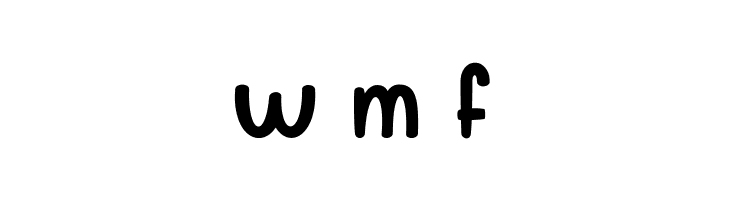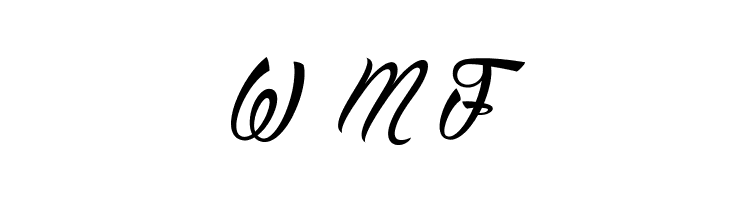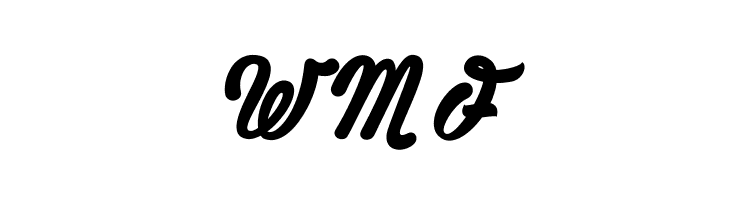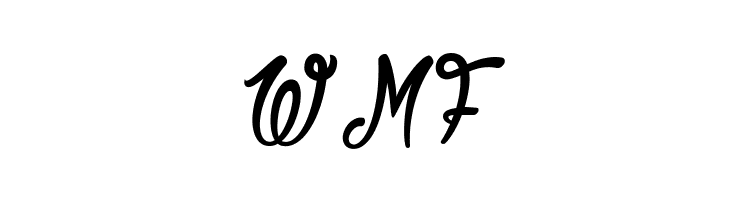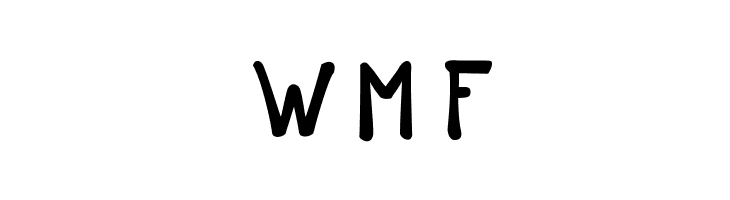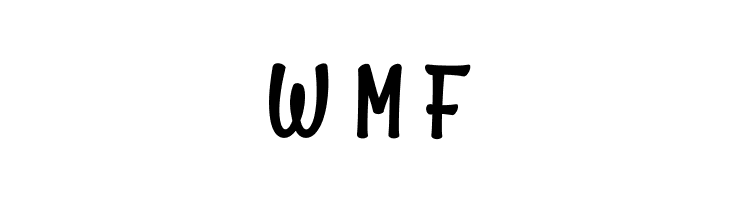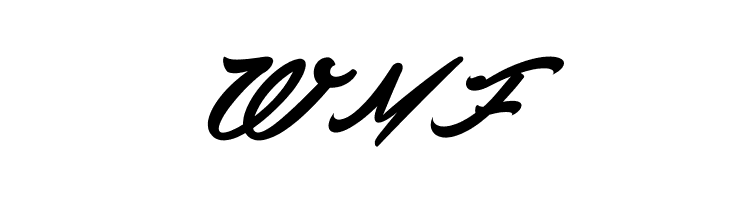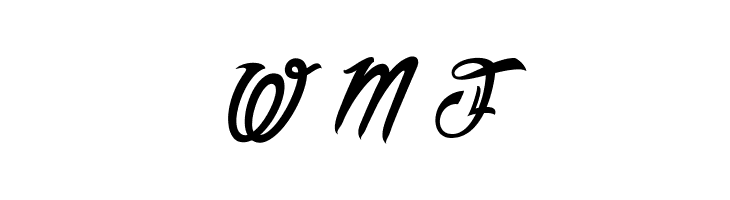
• komou_PersonalUseOnly
A playful, rounded font with a bold and friendly appearance.
• Bostella_PersonalUseOnly
A flowing, elegant script font with bold, cursive strokes.
• Cassandre light_PersonalUseOnly
A bold, cursive font with smooth, flowing lines and a modern yet classic feel.
• Jonquilles_PersonalUseOnly
A decorative cursive font with elegant loops and a handwritten style.
• Zorgho_PersonalUseOnly
A playful, hand-drawn font with bold, rounded characters.
• MrSunshine_PersonalUseOnly
A playful, bold font with rounded, whimsical letterforms.
• Homesick_PersonalUseOnly
A bold, playful font with rounded edges and a friendly appearance.
• Standards_PersonalUseOnly
A flowing, cursive script font with elegant, connected strokes.
• Ovniz_PersonalUseOnly
A playful, alien-themed font with cartoon-style illustrations.
• Stars_PersonalUseOnly
A bold, cursive font with an elegant, handwritten style.